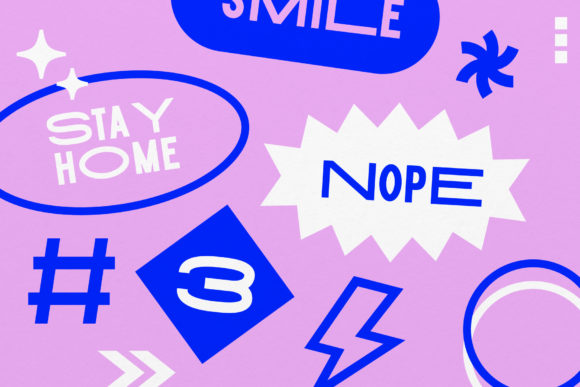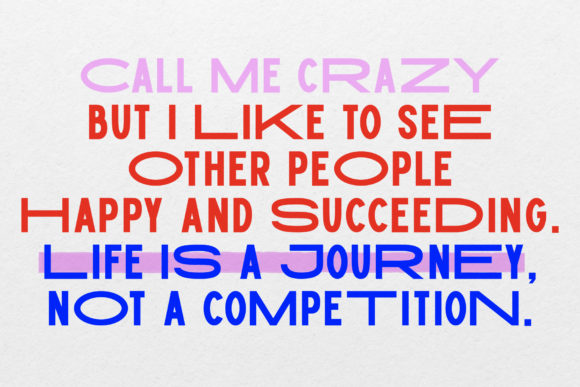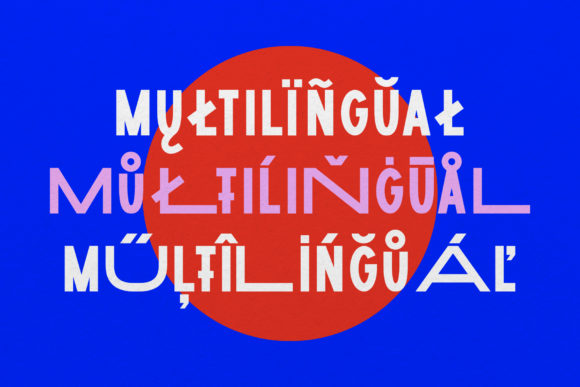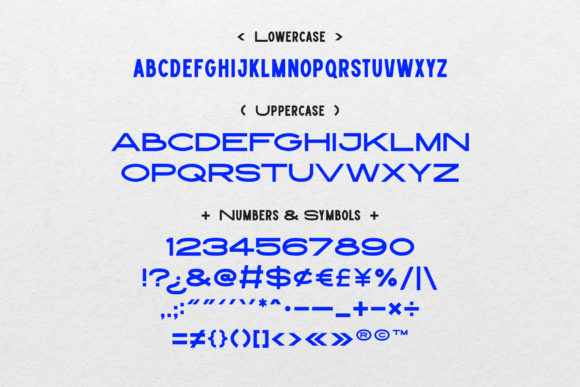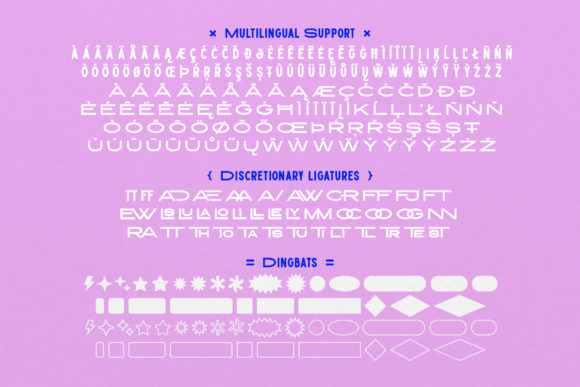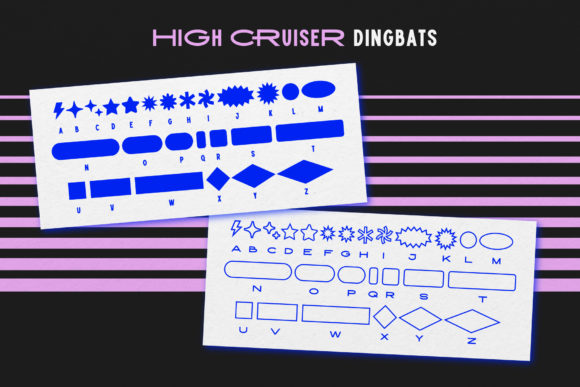
The Power of High Cruiser: A Bold and Sharp Sans Serif Font
I’ll never forget the moment I stumbled upon the perfect font for a project. I was working on a branding campaign for a trendy new coffee shop, and I was determined to find a font that would make their logo stand out. After hours of scouring through font libraries and testing out different combinations, I finally found it – High Cruiser. This bold and sharp sans serif font has been a game-changer for my design work, and I’m excited to share its awesomeness with you! 😊
An Honest Review of High Cruiser
- 💥 **Impactful**: High Cruiser makes a statement with its bold and sharp lines, perfect for headlines, titles, and attention-grabbing text.
- ✅ **Versatile**: This font works well in a variety of design contexts, from modern branding to creative crafts and DIY projects.
- 🌈 **Legible**: Despite its boldness, High Cruiser remains surprisingly legible, even at smaller font sizes.
- ⚠️ **Limited use in body text**: Due to its bold nature, High Cruiser might not be the best choice for lengthy body text. It’s perfect for headings and titles, but consider a complementary font for paragraphs.
- 🤔 **Kerning adjustments**: As with any font, some kerning adjustments might be necessary to achieve optimal spacing and readability.
The Designer Inspiration Behind High Cruiser
High Cruiser was designed with the modern creative in mind. Its bold and sharp lines are inspired by the urban landscape and the world of high-speed travel. Imagine the thrill of cruising down a highway, the wind rushing past, and the city lights blurring together – that’s the feeling that High Cruiser aims to capture.
Q: What is the best use case for High Cruiser?
A: High Cruiser is perfect for headlines, titles, and attention-grabbing text in a variety of design contexts, from modern branding to creative crafts and DIY projects.
Q: Can I use High Cruiser for body text?
A: While High Cruiser is legible, its bold nature makes it less suitable for lengthy body text. Consider pairing it with a complementary font for paragraphs.
Q: Does High Cruiser support OpenType features?
A: Yes, High Cruiser supports OpenType features like stylistic alternates and glyphs, which can add variety and interest to your text.